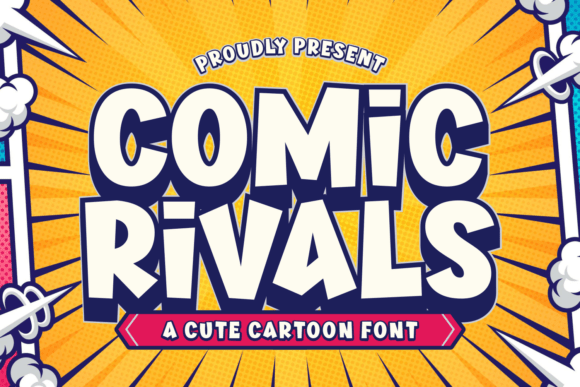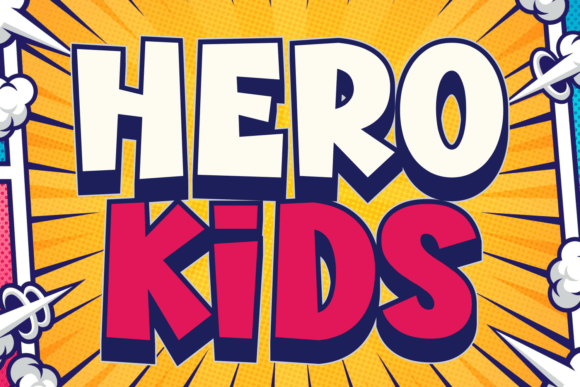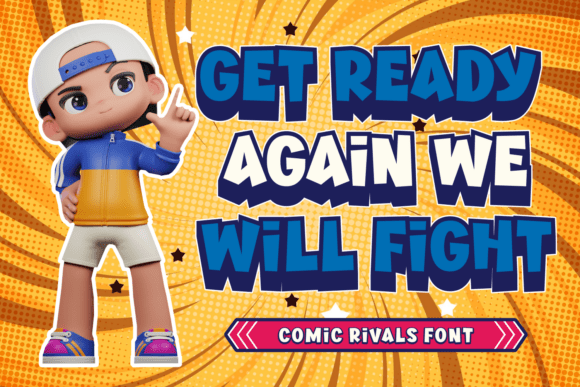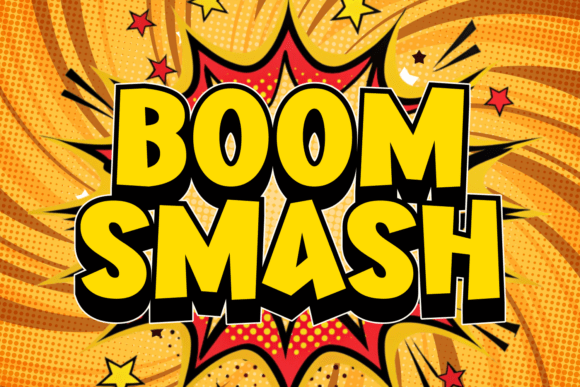
Comic Rivals Font
About the Comic Rivals Font
Introducing the Comic Rivals Font, a beautifully crafted typeface designed to elevate your creative projects. Introducing Comic Rivals – a playful and quirky font bundle that confidently blends modern elegance with a dash of craftiness. Featuring a minimalistic design, this best-selling typeface is perfect for any display use. Comic Rivals exudes a sweetness that is irresistibly cute, and its bouncy marker art characteristics further enhance its endearing appeal. This opentype font with unique ligature details harks back to the 90s retro pop influence and Y2K aesthetics, making it a favorite amongst kids and those drawn to nostalgic charm. Comic Rivals is particularly fitting for children’s back-to-school supplies and is an excellent choice for magazine lougotype. Beyond that, it can be a standout feature in branding, apparel, and clothing merchandise, invoking a sense of fun and superhero adventure. The layered extrude feature lends a bold dimension that will undoubtedly make your design visually stimulating. Stand out from the crowd with Comic Rivals, the playful font that dares to be different.
Comic Rivals Font Usage Examples
Comic Rivals Font Example